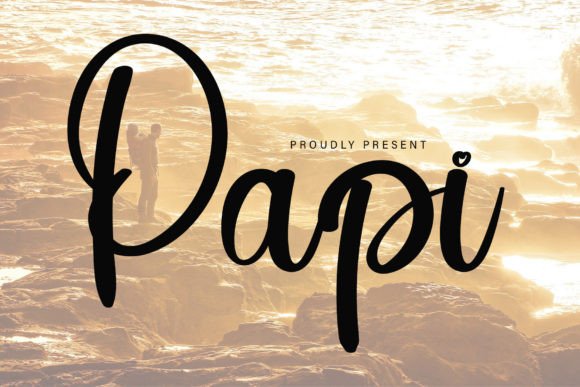
Behold! Step into a world of elegance and charm, where letters dance gracefully like ballet on a page. Introducing Papi Font, the enchanting script font that will captivate your heart with its sweet and friendly demeanor.
Picture this: a wedding invitation adorned with Papi Font's flowing strokes, exuding an air of romance and sophistication. With its playful and relaxed character, Papi Font is the perfect choice for creating delightful cards that convey your heartfelt messages.
Let your designs bloom with the beauty of Papi Font, whether it's a poster, a logo, or a branding project. Its versatility extends beyond mere words, allowing you to infuse your creations with a touch of whimsy and enchantment.
Embrace the artistry of Papi Font and embark on a creative journey where your imagination takes flight. Let your designs speak volumes with the charm and playfulness that only Papi Font can deliver.